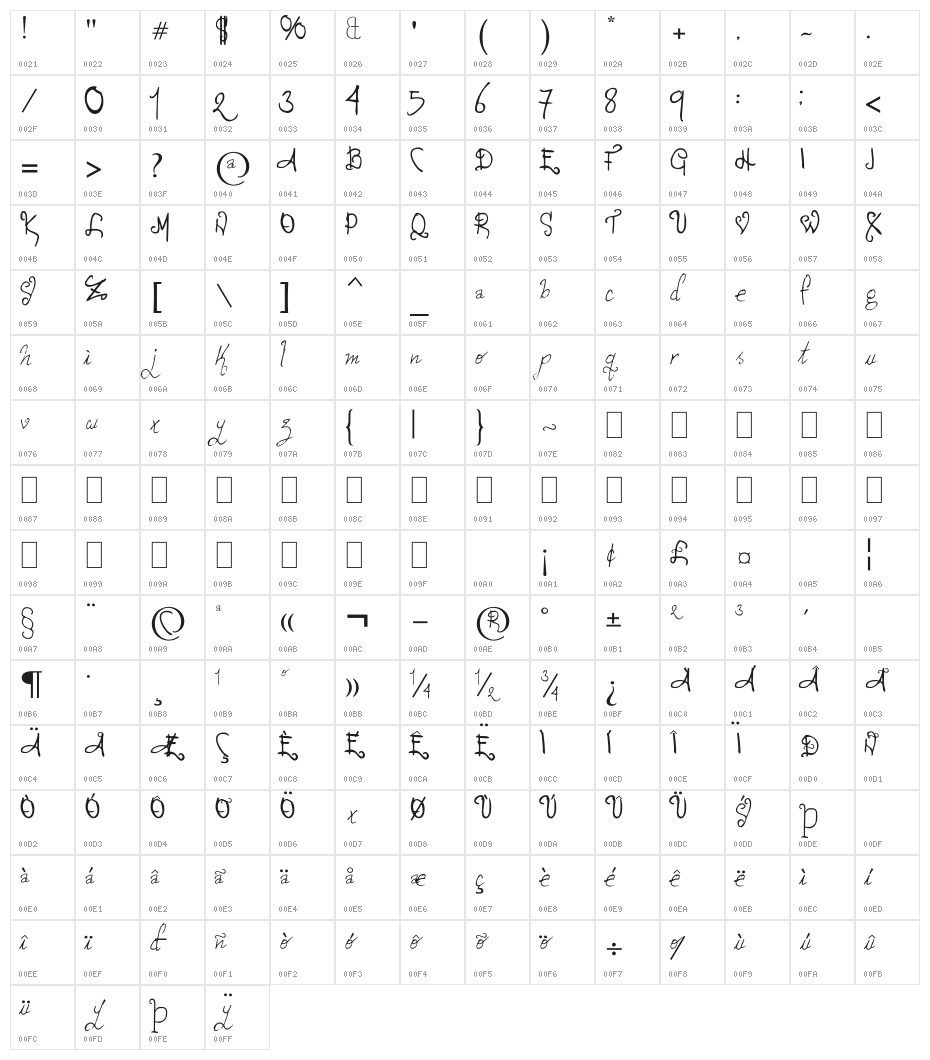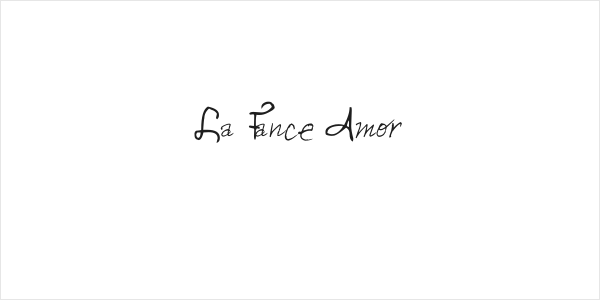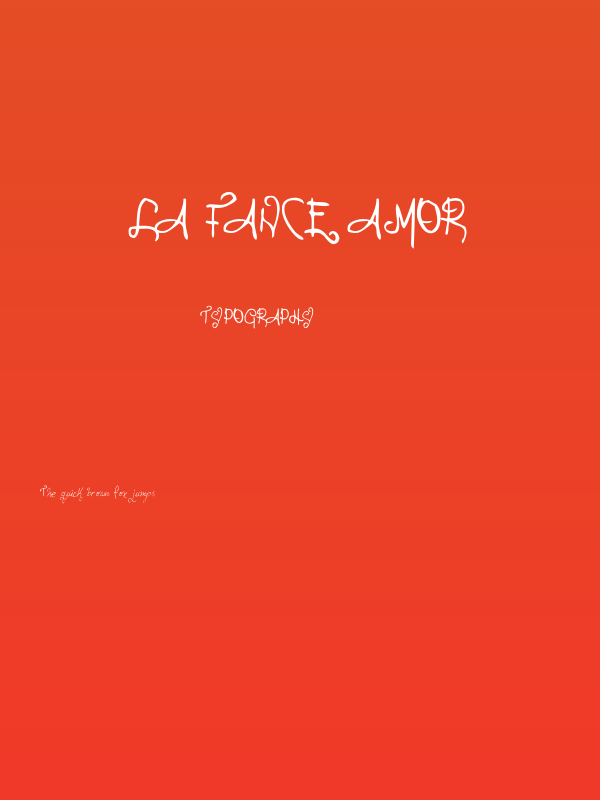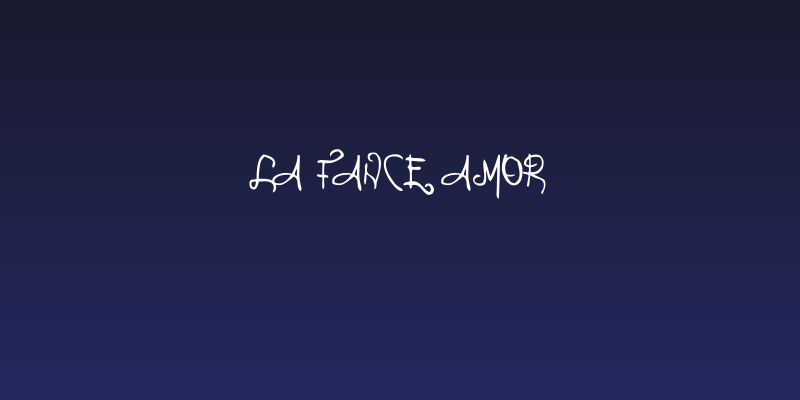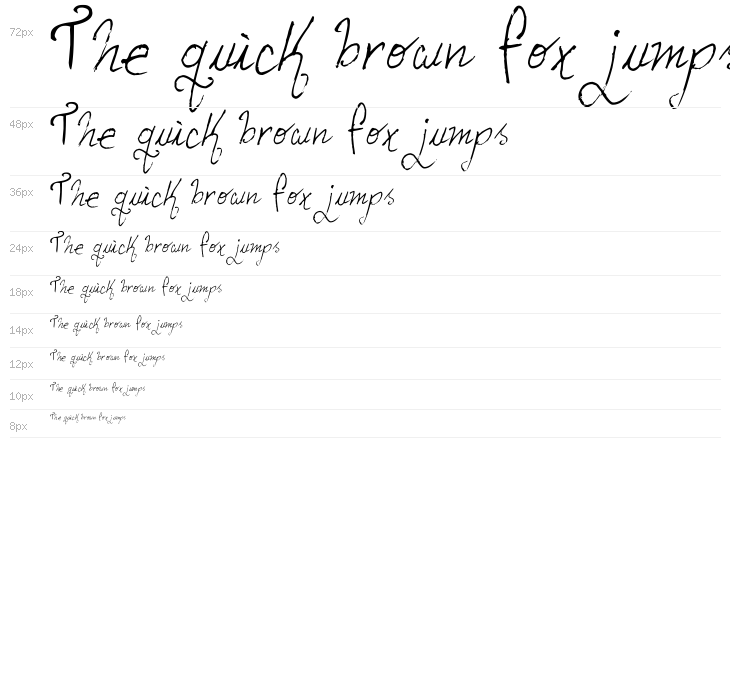
La Fance Amor Font
La Fance Amor Description
This font features an elegant and artistic script style, characterized by its flowing and intricate letterforms. The uppercase letters are bold and ornate, with unique flourishes that add a touch of sophistication. The lowercase letters maintain a consistent style, with smooth curves and a slightly whimsical appearance. Numbers are designed with a similar flair, ensuring a cohesive look throughout. Special characters are creatively integrated, enhancing the font's decorative appeal. This font is ideal for projects that require a touch of elegance and creativity.
Use CaseLogos, Invitations, Decorative text
Proposed ProjectsWedding invitations, greeting cards, branding, and decorative posters.